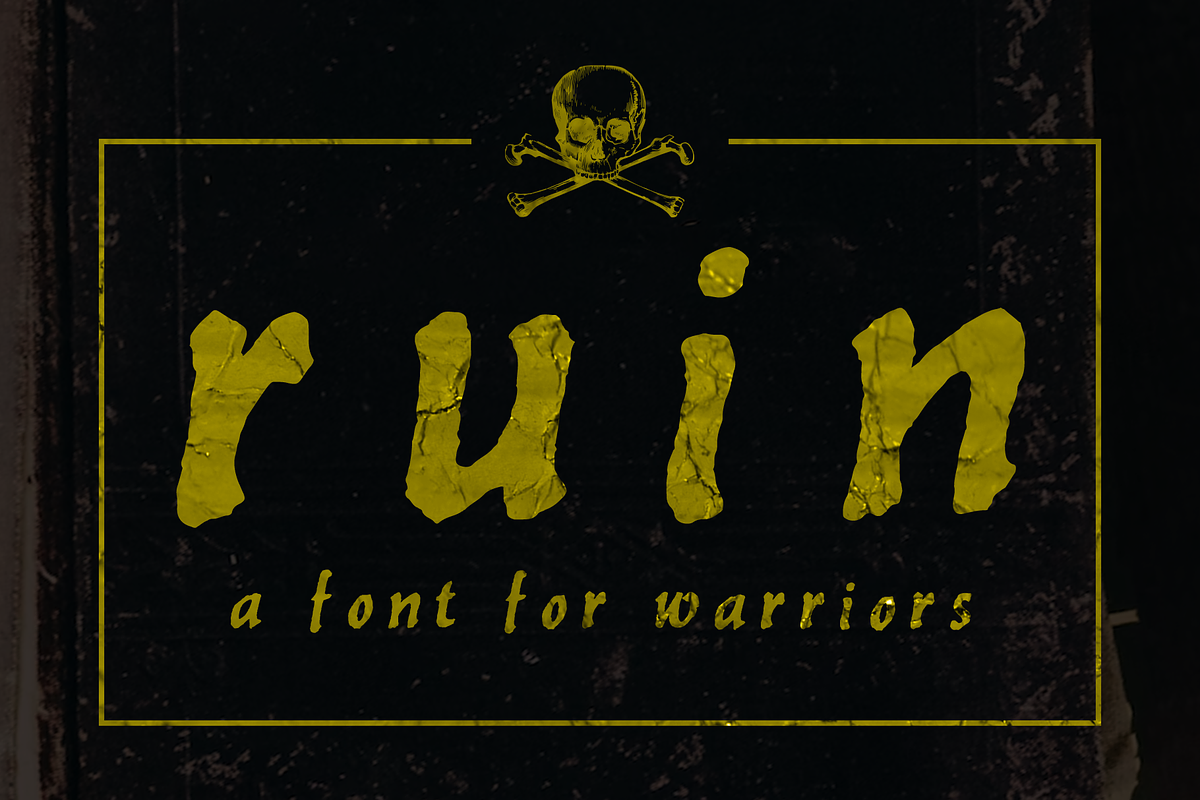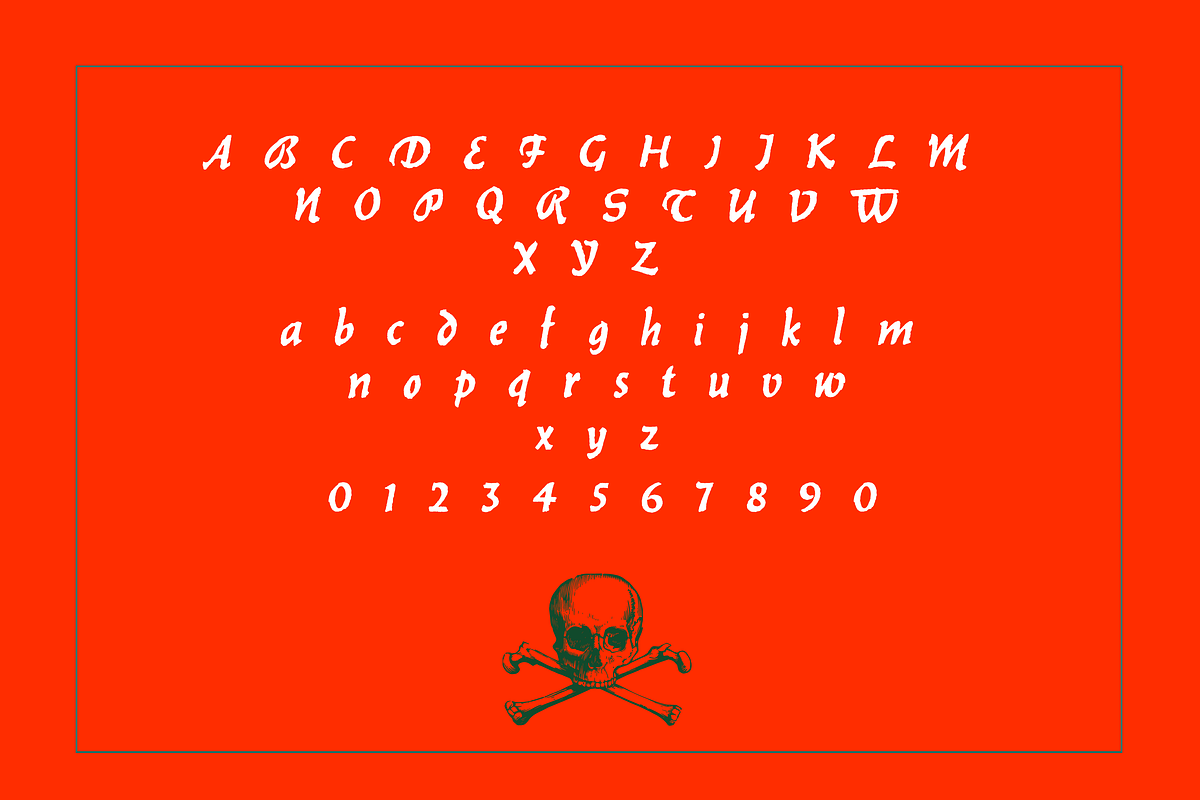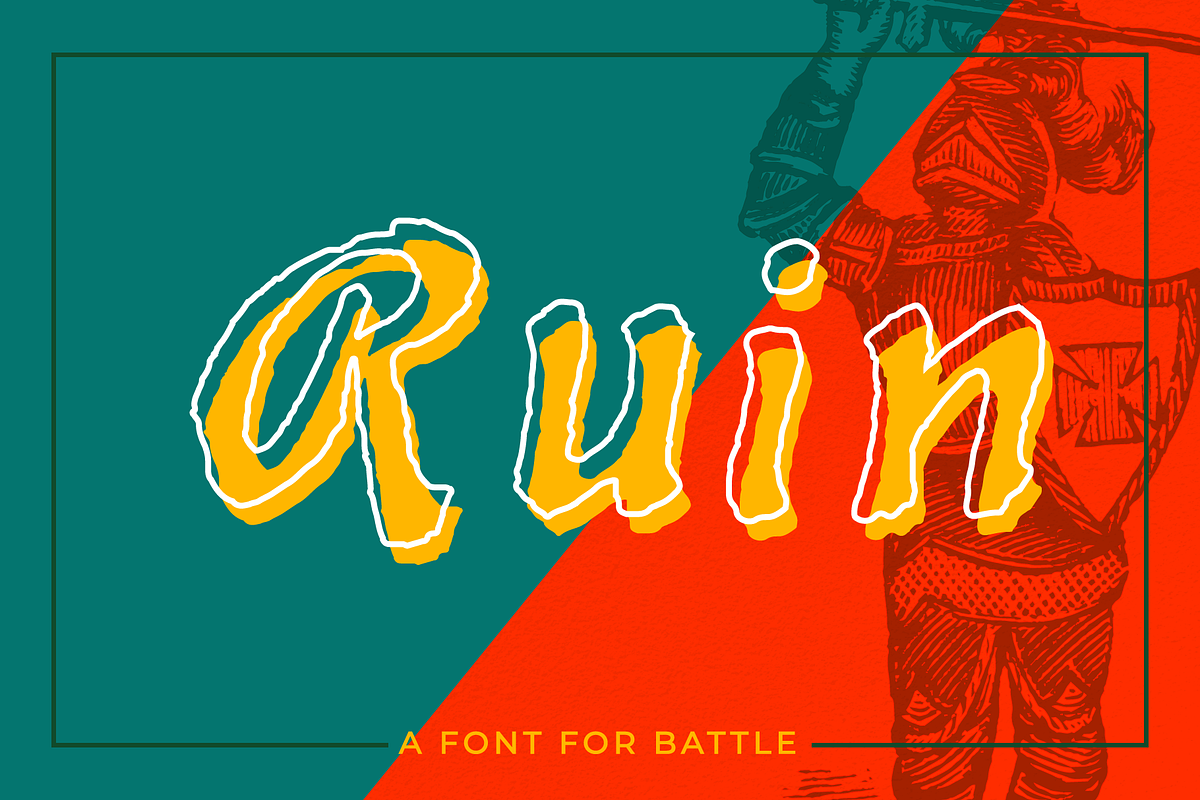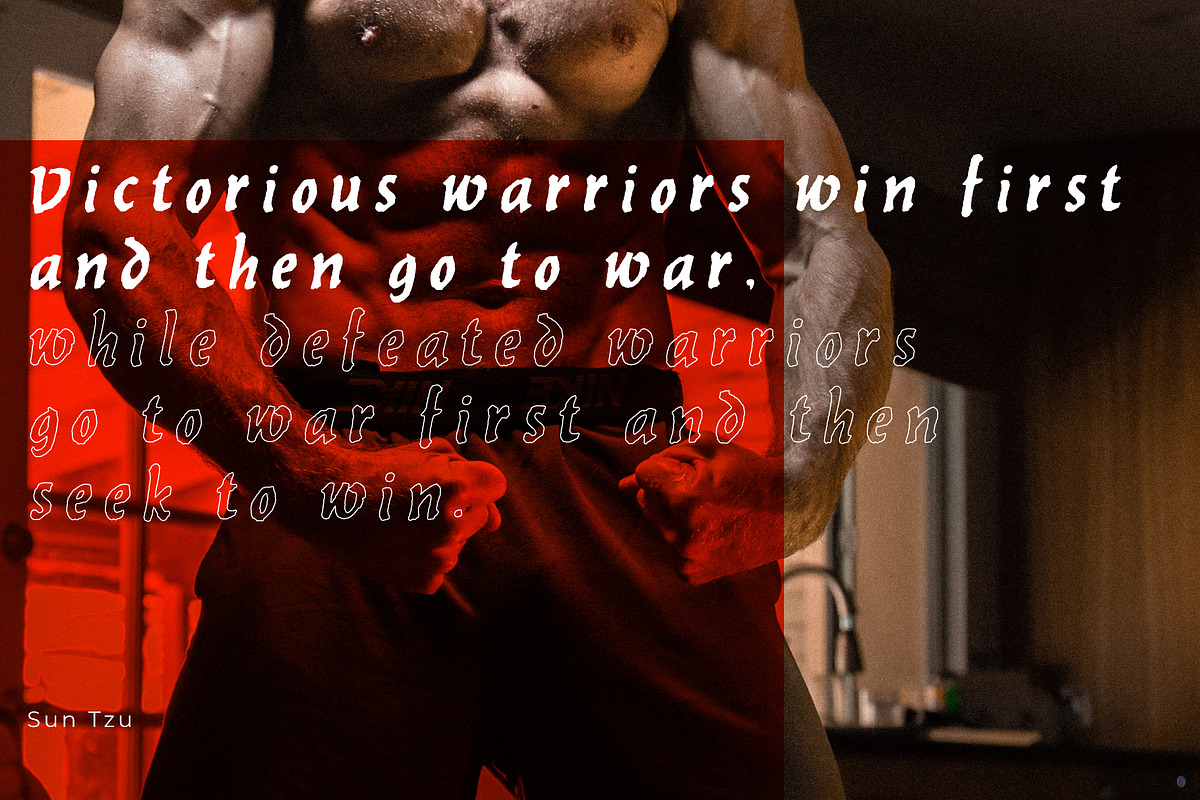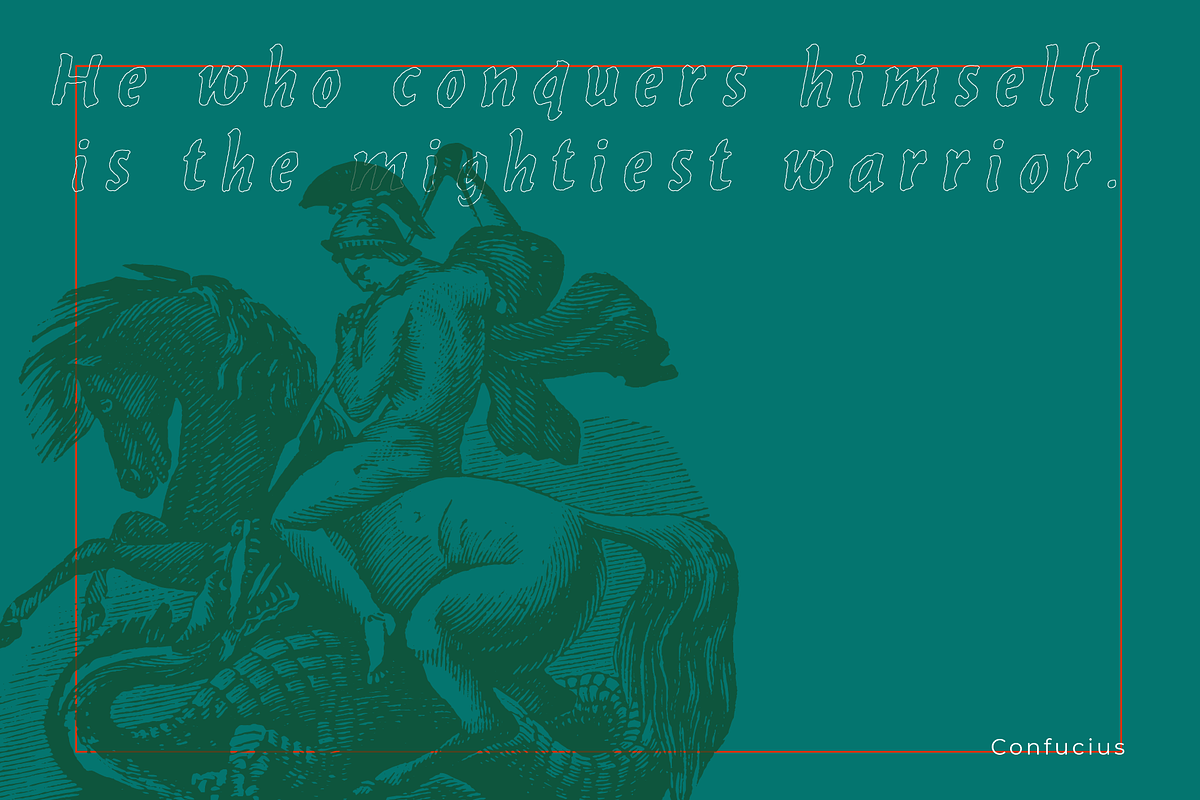
Ruin - hand drawn medieval font
Ruin is a vintage font I found in an antique book of typefaces. I use it in my work when I need to add a title that feels a bit medieval and aggressive.
Suggested uses: Old book covers, banners, instagram quote images.